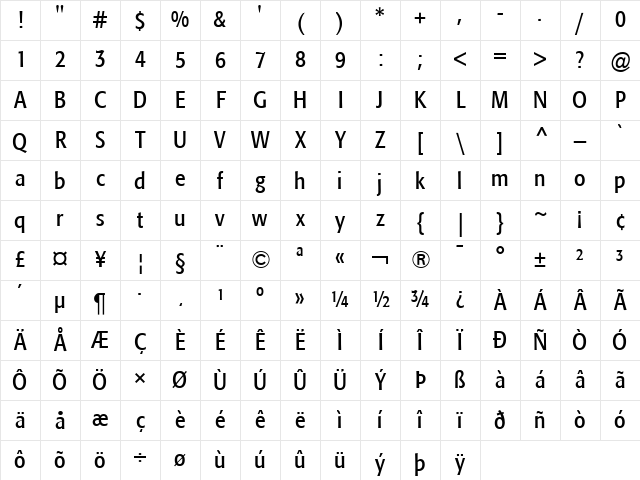
Formata Regular
Design Context for Formata
Formata is a composed and adaptable typeface that performs quietly and consistently across a wide range of design contexts.